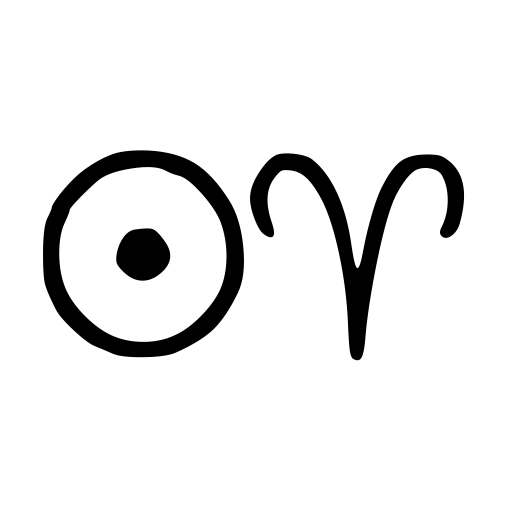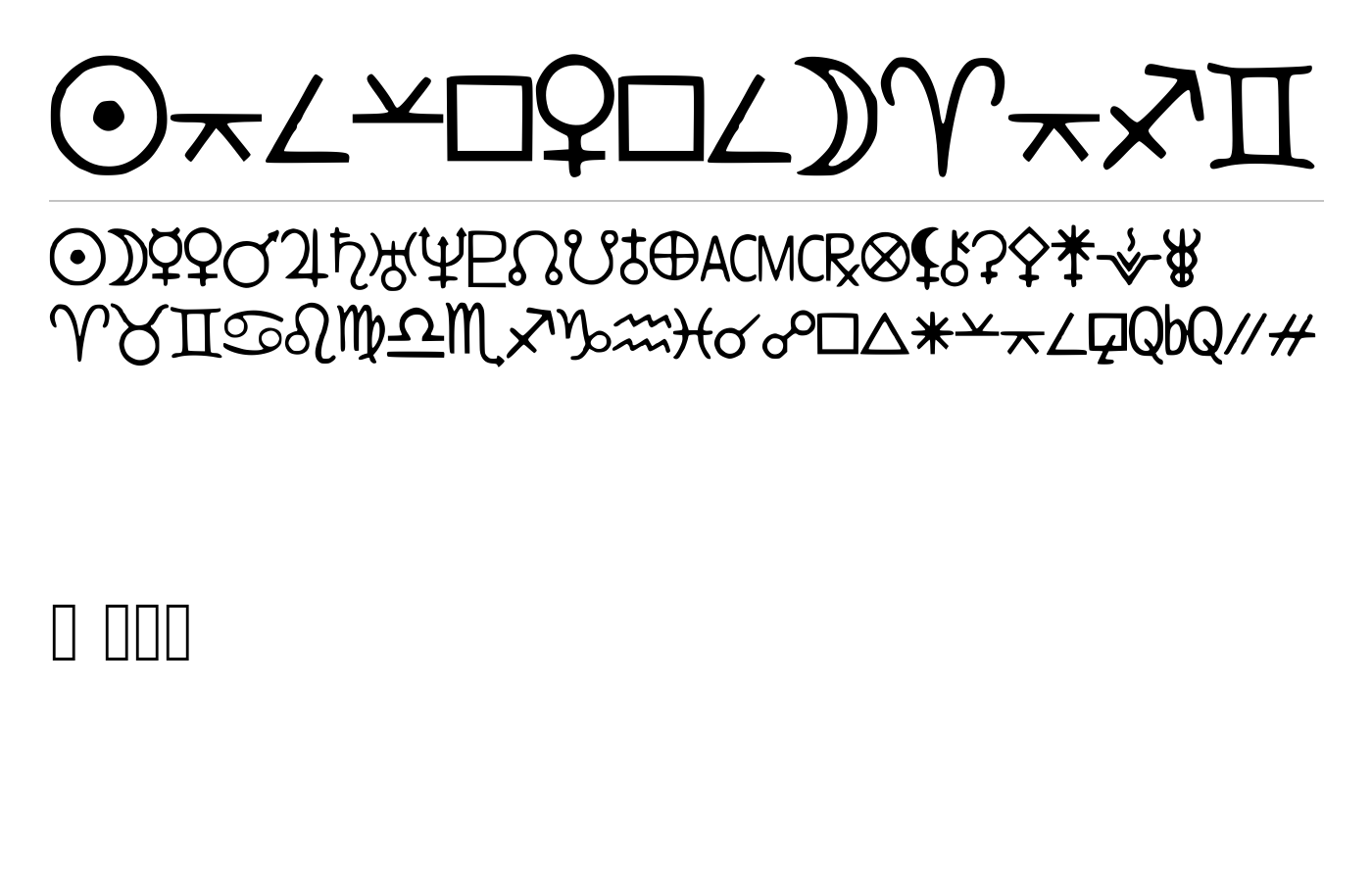
AstroDotBasic is a unique, symbolic display font inspired by astrological and cosmic motifs, featuring a playful and slightly irregular stroke style that adds a hand-drawn feel. Its distinct, monoline shapes and esoteric symbols make it perfect for creative projects seeking a mystical or futuristic vibe, ideal for logos, posters, and thematic artwork that demands an otherworldly touch. This font works best where a decorative, mysterious aesthetic is needed rather than conventional text readability.
AstroDotBasic Font
About AstroDotBasic Font